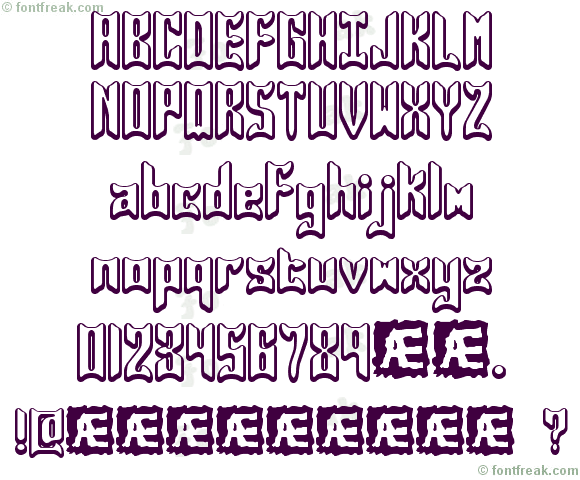
Jasper (BRK)
Introducing the Jasper font by Ænigma Fonts, a striking display typeface designed for those seeking a unique and artistic flair in their projects. This freeware font captures attention with its intricate and decorative style, making it stand out in any design. The Jasper font features a combination of elegant curves and sharp angles, which creates a visually captivating contrast. The stroke weight varies throughout, giving it a dynamic feel while the spacing is thoughtfully balanced to ensure readability.
The Jasper font is perfect for a variety of creative applications. It shines in wedding invitations, where its ornate design adds a touch of sophistication and romance. Additionally, it works beautifully on movie posters, drawing the eye and setting the tone for the film. Restaurant menus can also benefit from its artistic flair, helping to create an inviting atmosphere for diners. Graphic designers will appreciate its versatility, making it suitable for branding and promotional materials that need to leave a lasting impression. Content creators looking to enhance their digital projects will find Jasper font free download an essential tool for elevating their visual storytelling.
Targeting graphic designers, small business owners, and content creators, Jasper font is designed to inspire creativity and innovation. Its distinctive style allows it to stand out in a crowded marketplace, making it a valuable asset for anyone looking to make a statement with their typography. The combination of its decorative elements and elegant curves ensures that Jasper not only captures attention but also conveys a sense of artistry and thoughtfulness in every application. Whether you're creating a stunning visual piece or branding your business, Jasper font is the perfect choice for those who dare to be different.